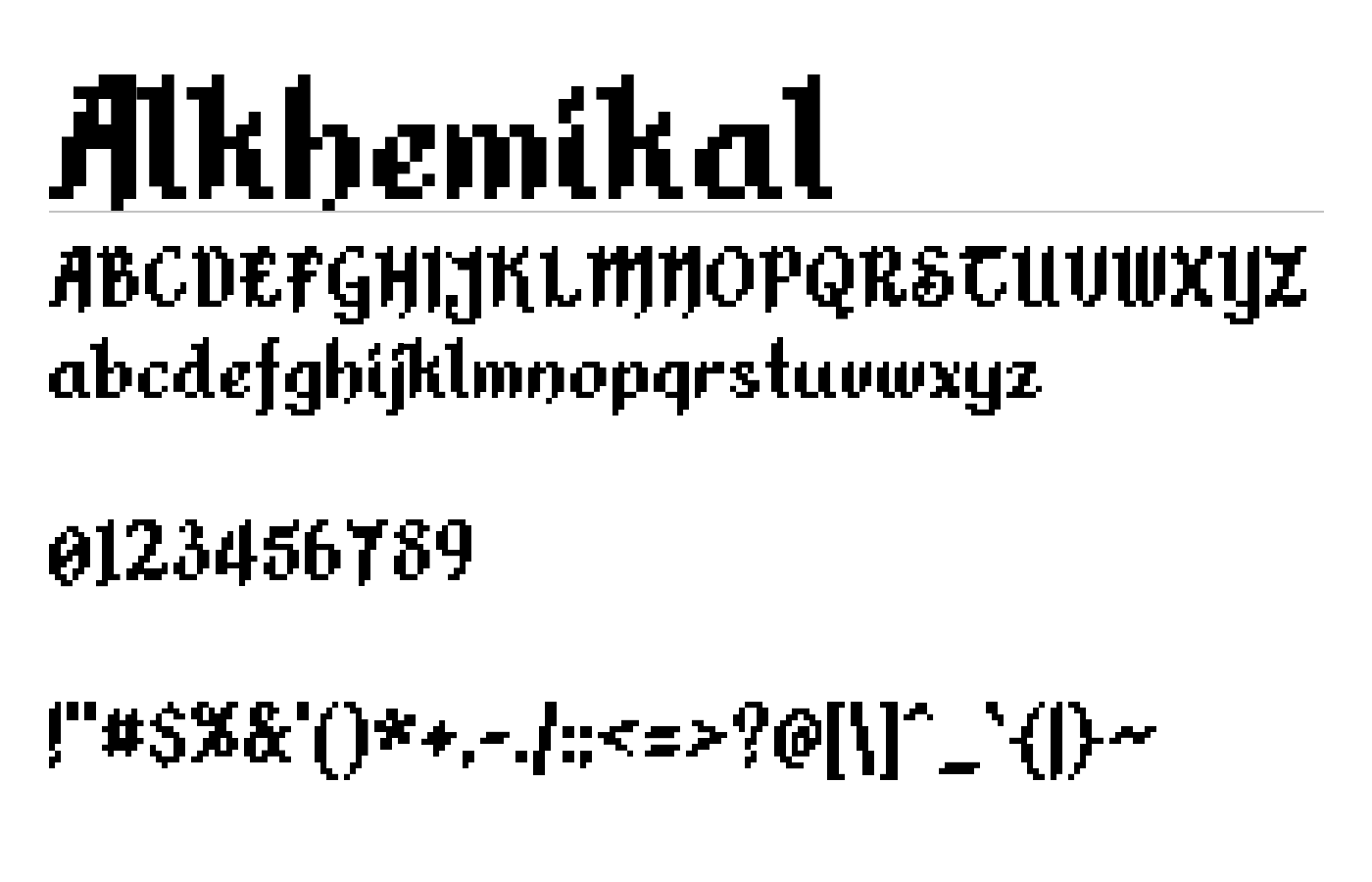
Alkhemikal is a pixelated serif font that combines a vintage, low-resolution digital aesthetic with classic serif details. Its blocky, stepped edges give it a retro video game or 8-bit computer feel, making it ideal for projects that want to evoke nostalgia or a tech-inspired mood while maintaining a slightly formal edge. This font works well for logos, headlines, and creative digital designs where a unique, eye-catching style is desired.
Alkhemikal Font
About Alkhemikal Font